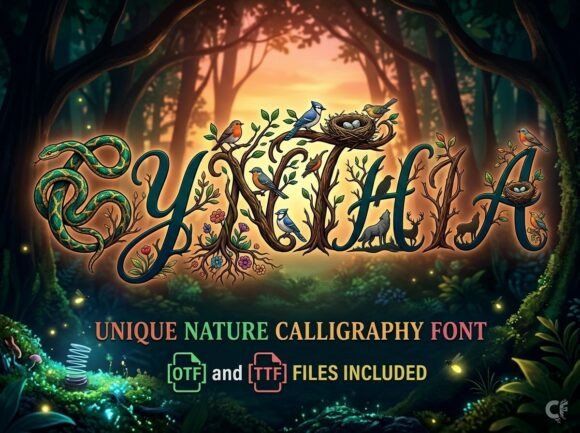
Cynthia Font: The Ultimate Decorative Display Font for Creative Projects
In the world of typography, a font can make or break a design. If you’re looking for a font that can add a touch of elegance, sophistication, and creativity to your projects, look no further than Cynthia Font. This stunning decorative display font is designed to be the center of attention, featuring unique artistic elements and a strong visual personality that sets it apart from the ordinary.
What Makes Cynthia Font Special?
Cynthia Font is a game-changer for creators who want to make a statement with their designs. Its intricate details and creative letterforms make it perfect for high-impact designs where the typography needs to do the talking. Whether you’re designing a modern poster, a unique brand identity, or eye-catching social media content, this font adds an instant “wow” factor to any project.
Cynthia Font is versatile enough to be used in a wide range of design projects, including:
- Poster Design: Create headlines that people can’t look away from. With Cynthia Font, you can create stunning posters that grab attention and leave a lasting impression.
- Branding & Logos: Build a unique identity for creative businesses. This font is perfect for creating artistic logos that reflect a brand’s personality and style.
- Apparel & Merch: Perfect for T-shirts, hoodies, and tote bag designs. Cynthia Font adds a touch of elegance and sophistication to any apparel or merchandise design.
- Social Media Content: Create eye-catching social media content that stands out from the crowd. This font is perfect for creating engaging and shareable content that gets noticed.
Key Features of Cynthia Font
Cynthia Font has several key features that make it a standout font:
- Unique Artistic Elements: This font features unique artistic elements that set it apart from other fonts.
- Strong Visual Personality: Cynthia Font has a strong visual personality that makes it perfect for high-impact designs.
- Intricate Details: The font’s intricate details make it perfect for designs where the typography needs to do the talking.
- Creative Letterforms: Cynthia Font features creative letterforms that add an instant “wow” factor to any project.
Why Choose Cynthia Font?
There are many reasons why Cynthia Font is the perfect choice for your design projects:
- Professional and Polished Finish: This font maintains a professional and polished finish, making it perfect for designs where you want to make a good impression.
- Versatility: Cynthia Font is versatile enough to be used in a wide range of design projects.
- Ease of Use: This font is easy to use and can be easily integrated into your design workflow.
Tips for Using Cynthia Font
Here are some tips for getting the most out of Cynthia Font:
- Use it as a Headline Font: Cynthia Font is perfect for use as a headline font, where you want to grab attention and make a statement.
- Experiment with Different Colors: Try experimenting with different colors to see what works best with your design.
- Pair it with Other Fonts: Cynthia Font can be paired with other fonts to create a unique and interesting design.
In conclusion, Cynthia Font is a stunning decorative display font that is perfect for creative projects. Its unique artistic elements, strong visual personality, and intricate details make it perfect for high-impact designs. With its versatility, ease of use, and professional and polished finish, Cynthia Font is a great choice for designers and crafters who want to make a statement with their designs.